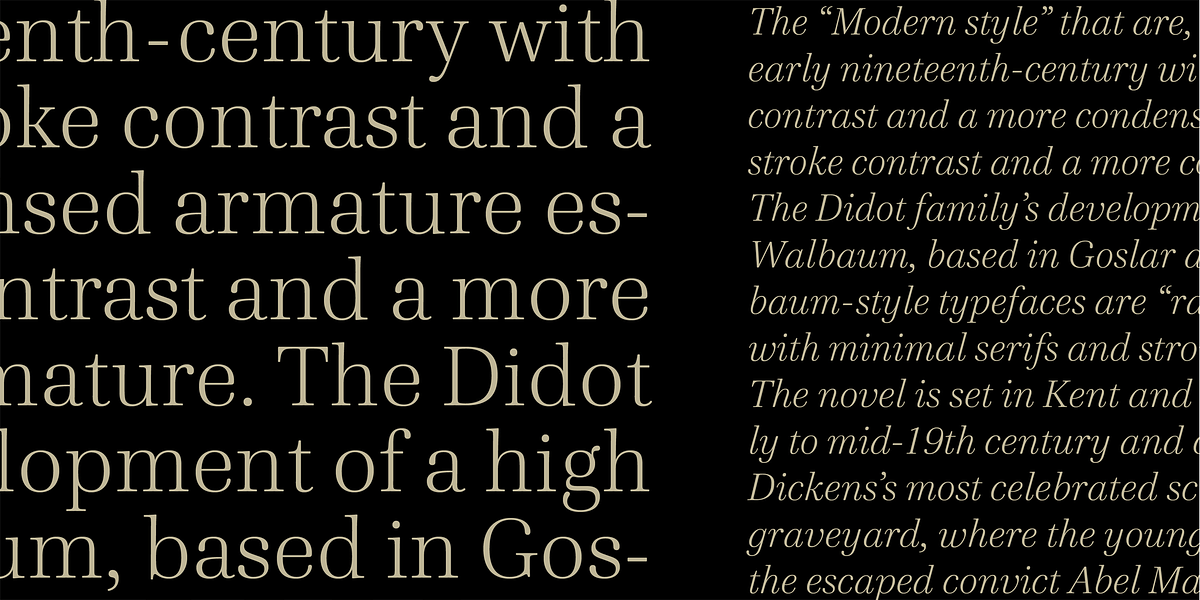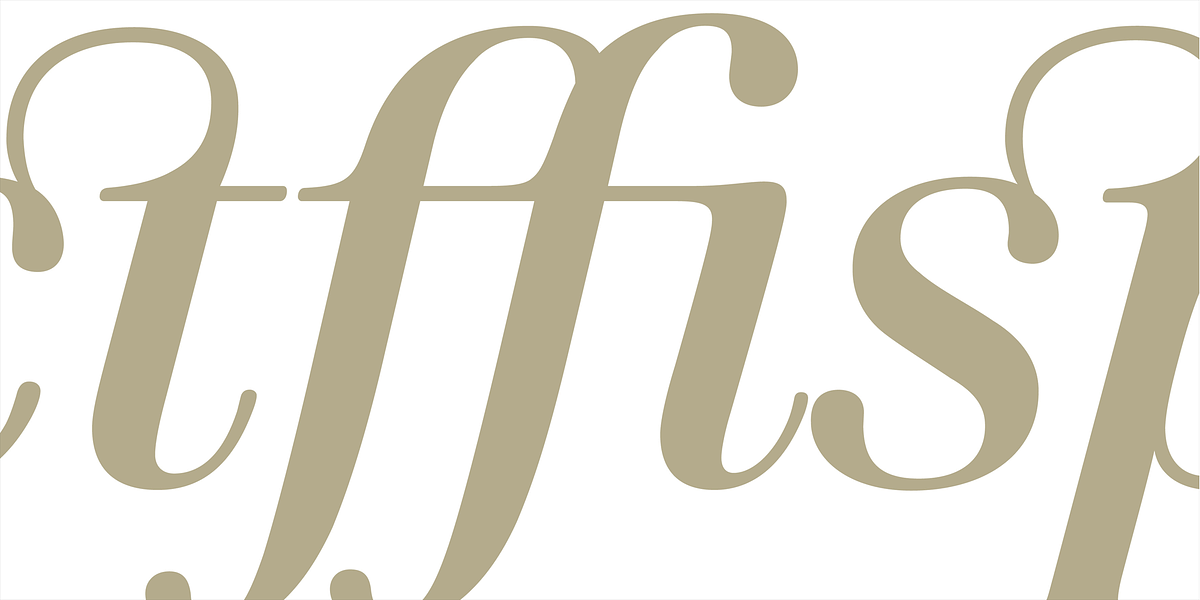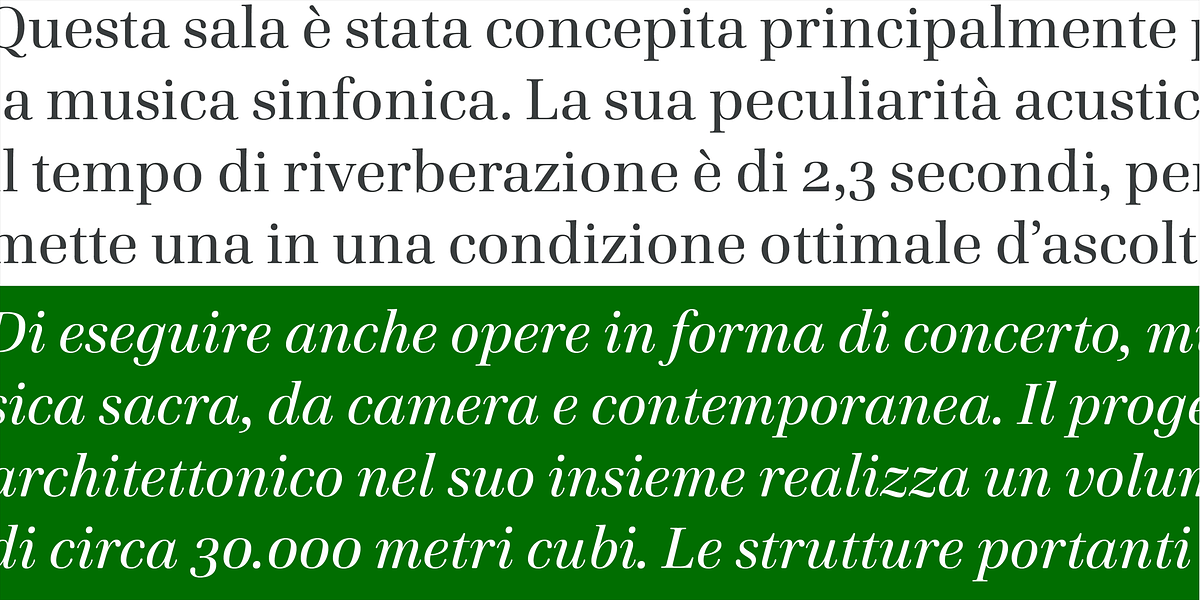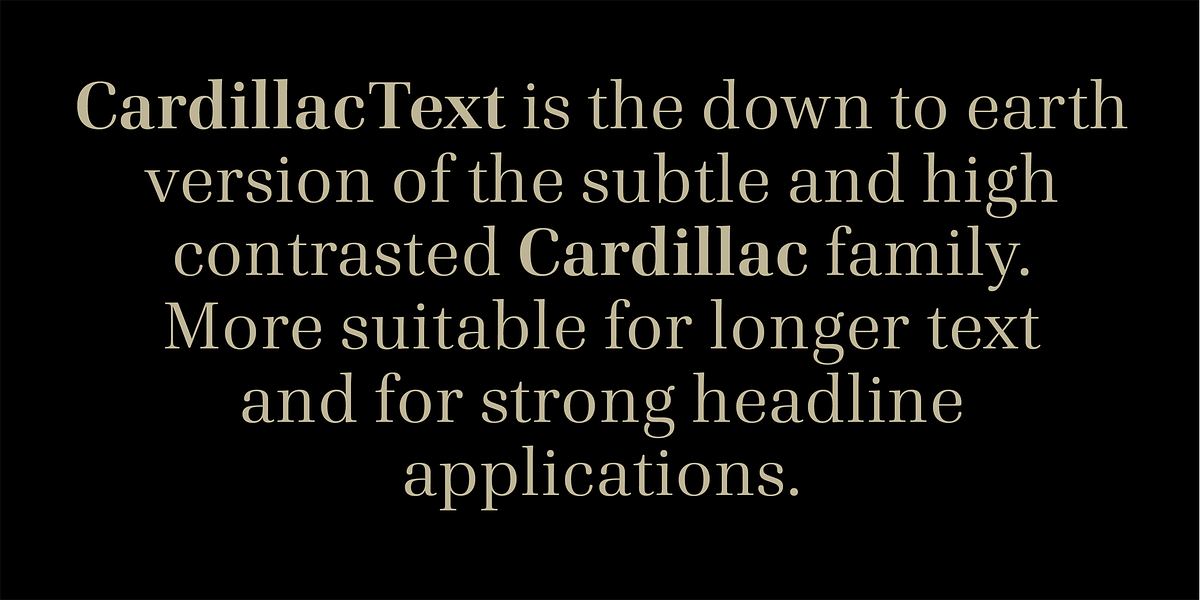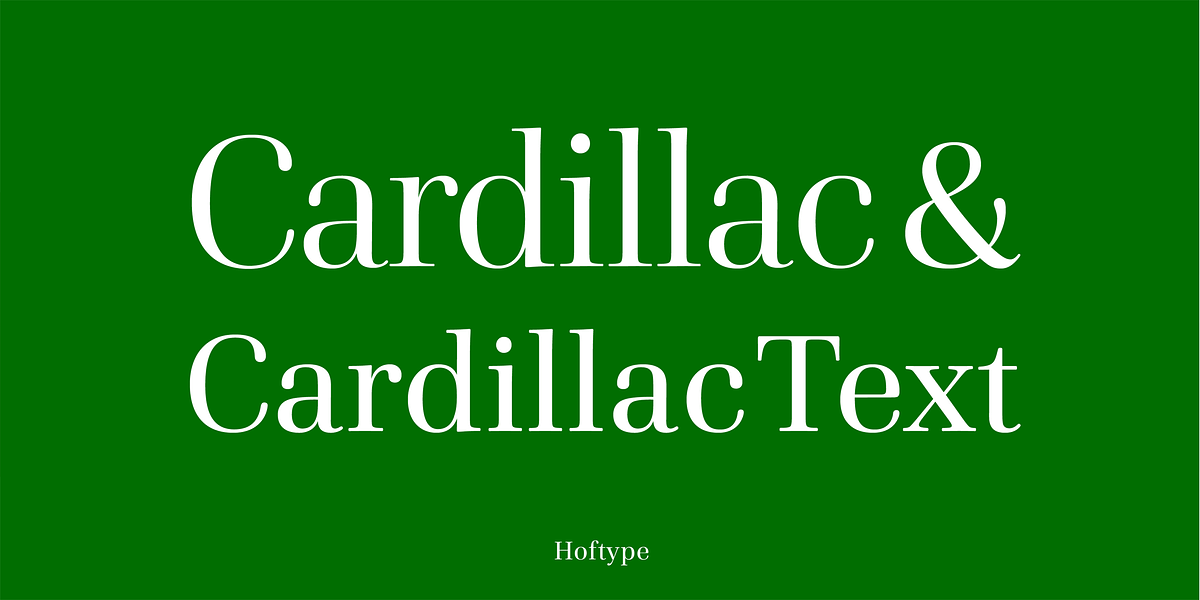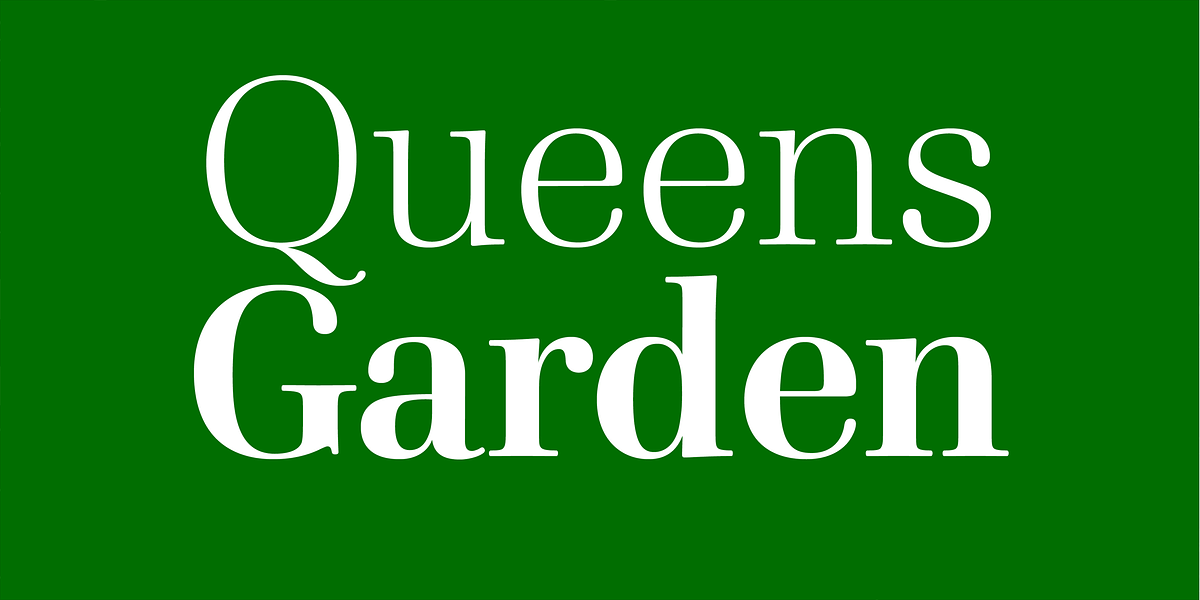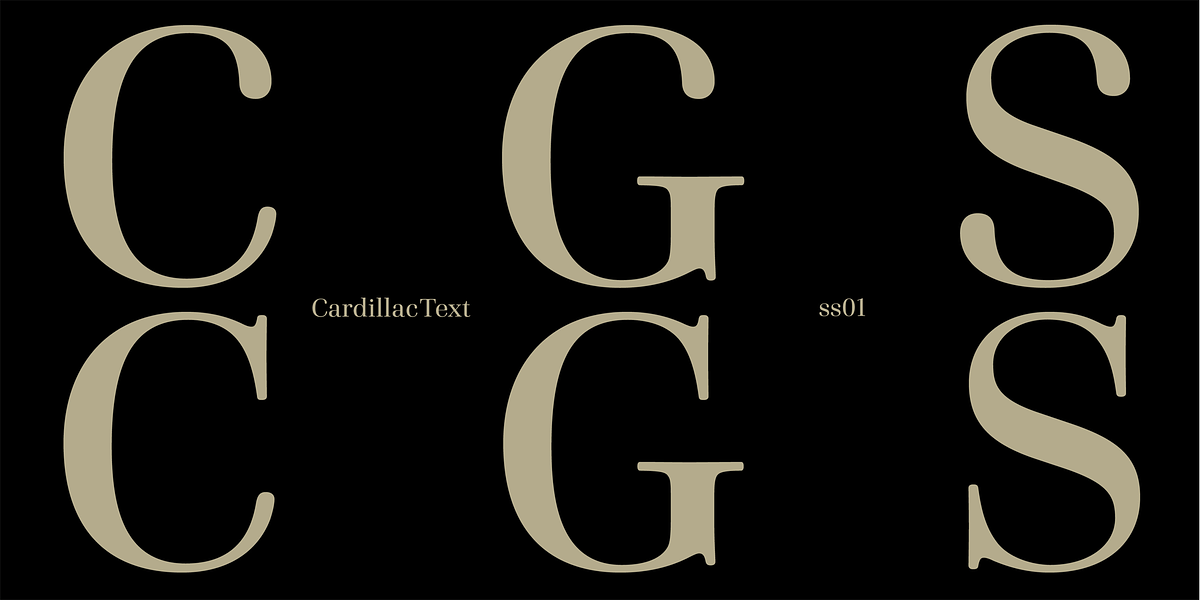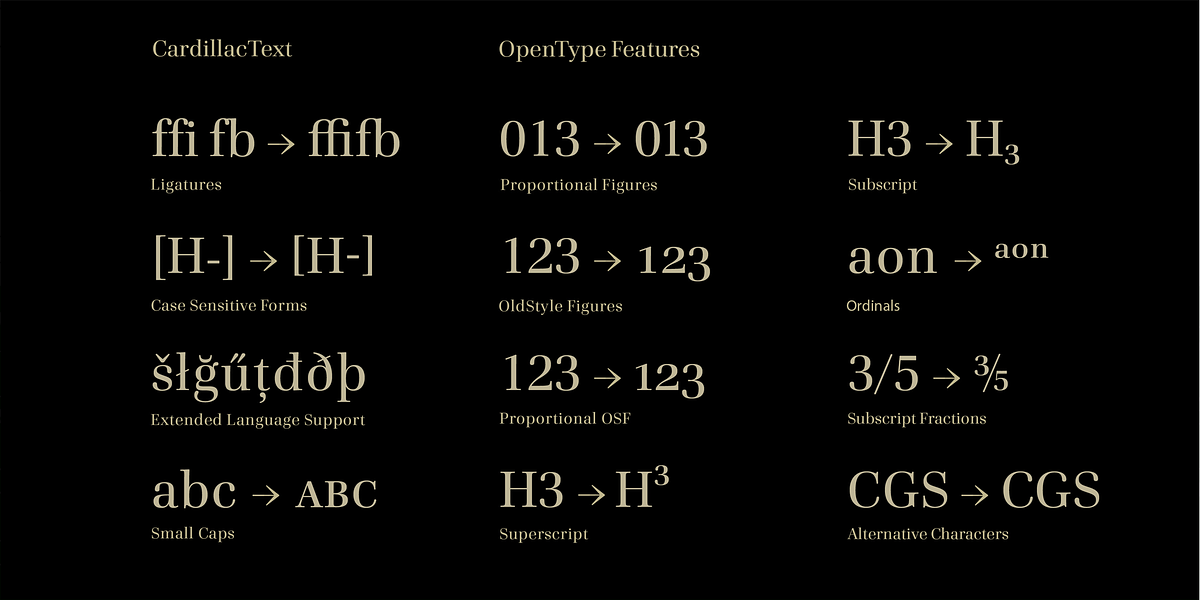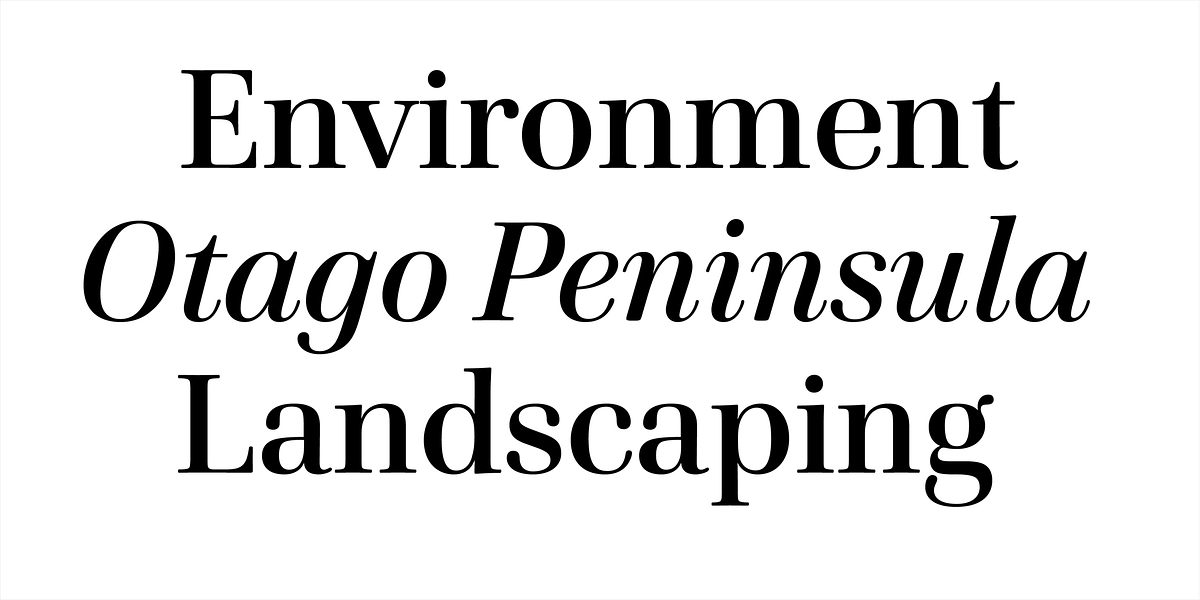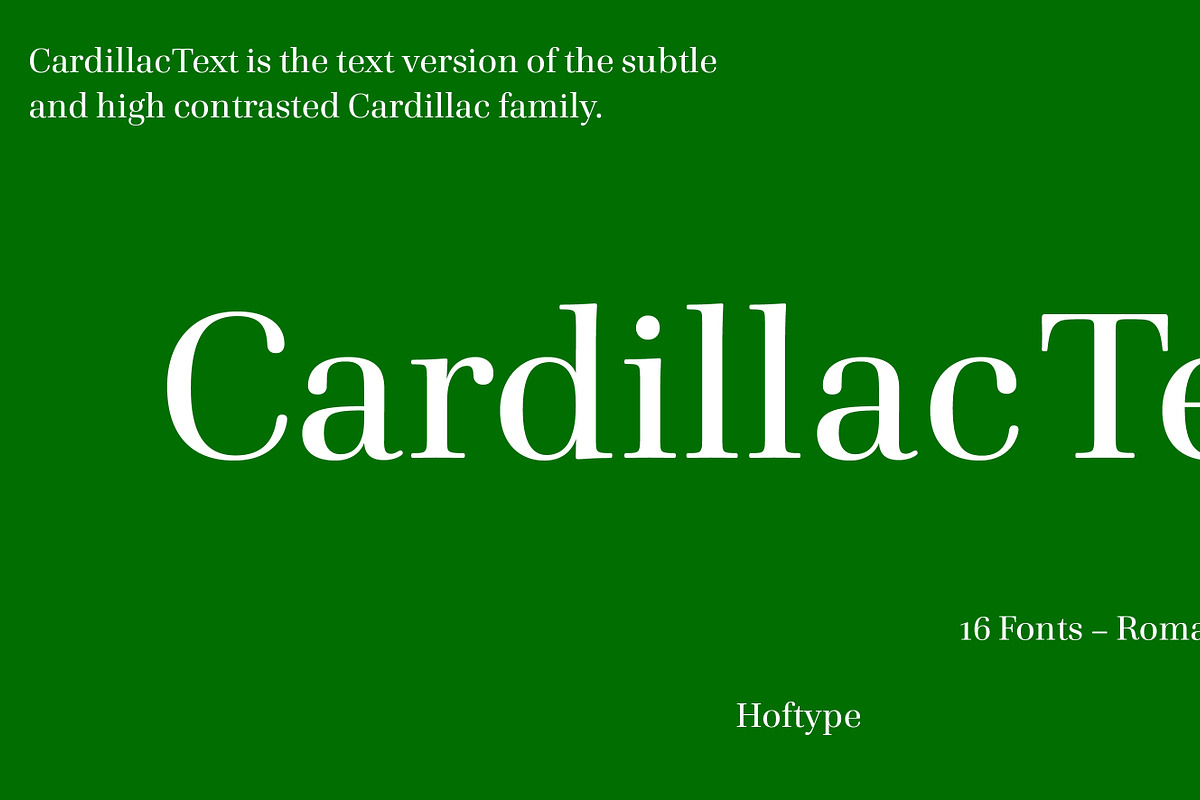
Cardillac Text
CardillacText is a versatile transitional serif font designed for both readability in long paragraphs and impact in headlines. It offers a range of weights and features like small caps, ligatures, and various numeral styles, making it suitable for ambitious typographic projects.